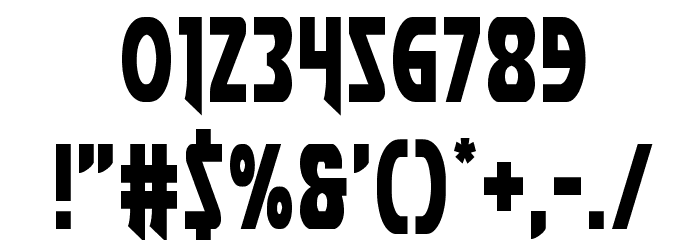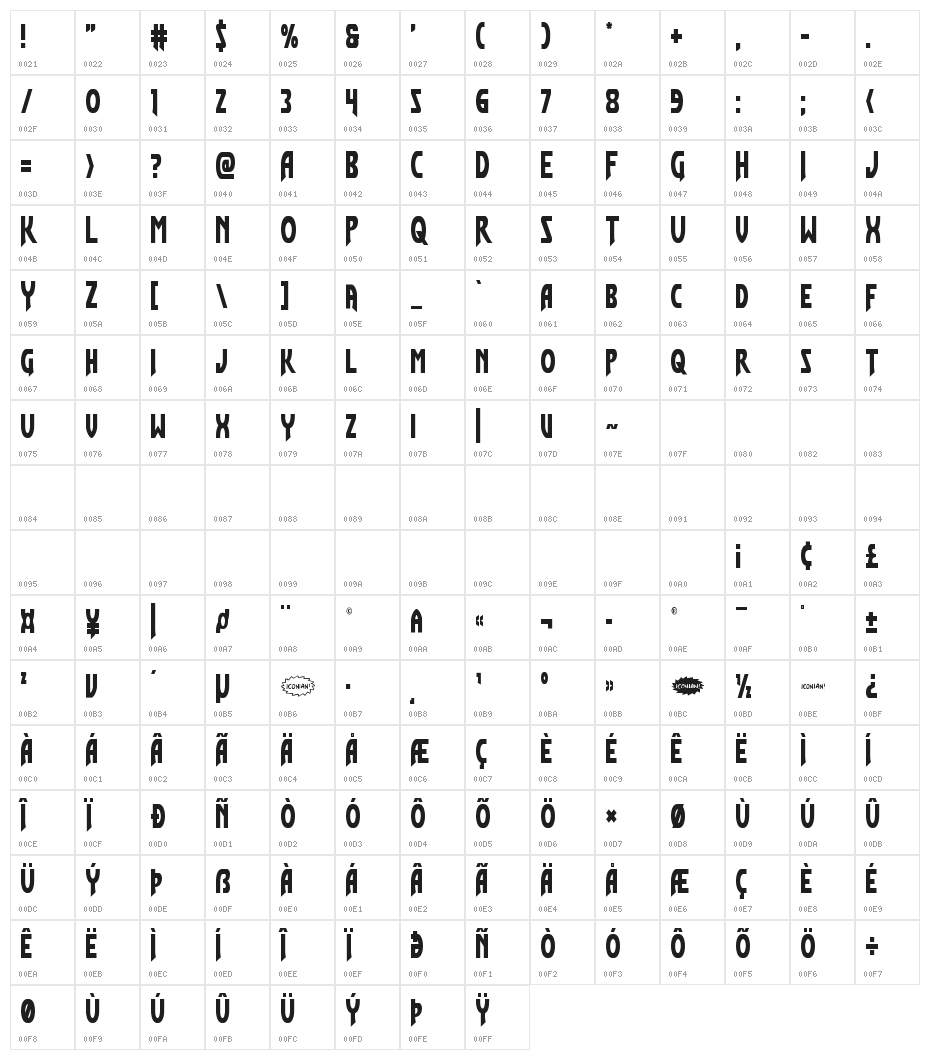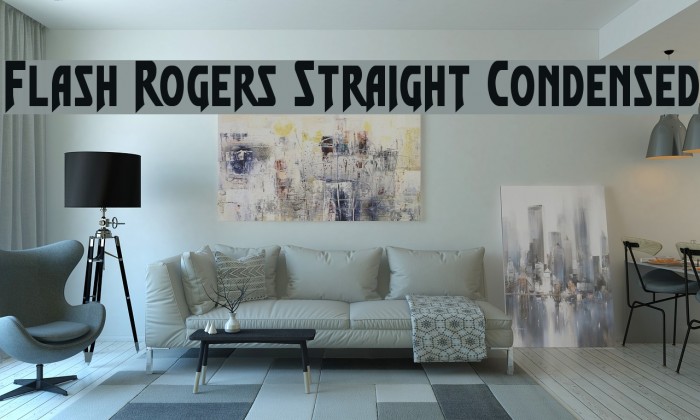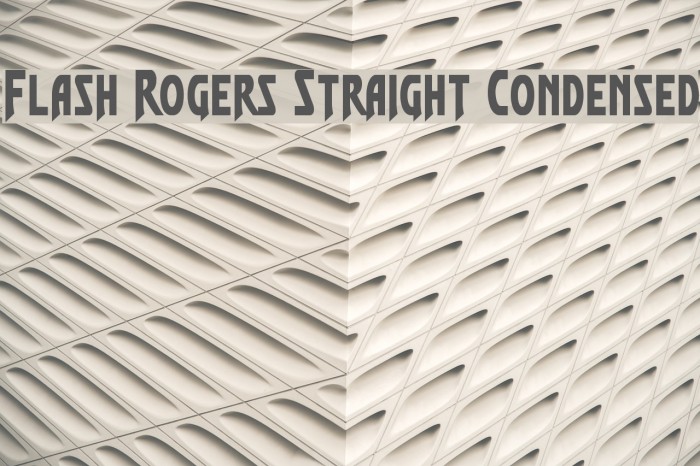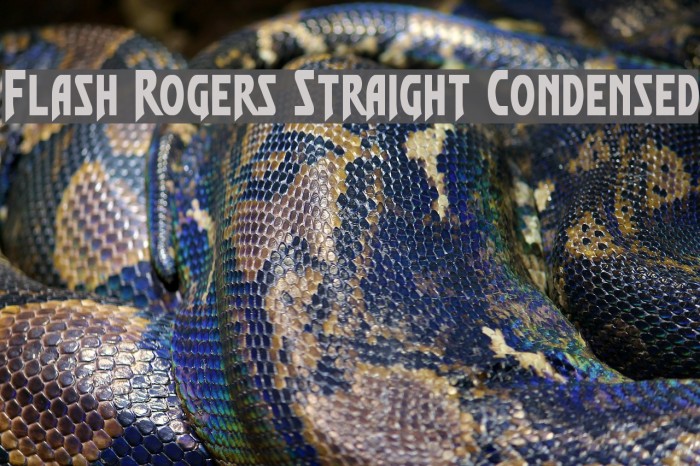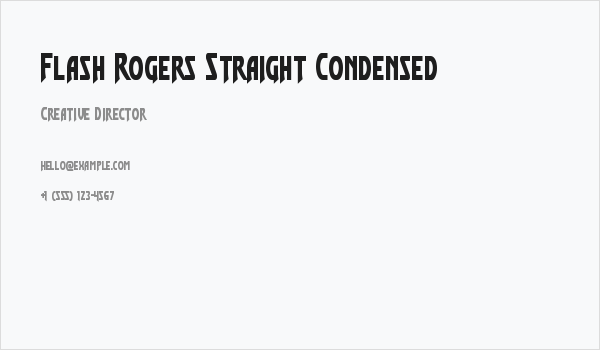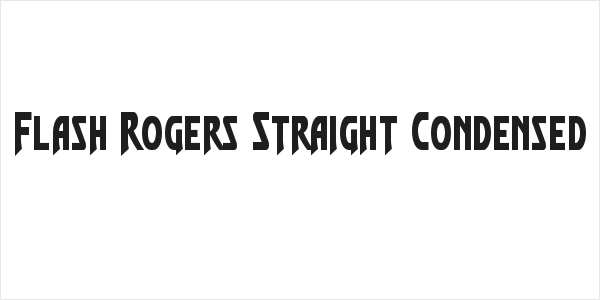
Flash Rogers Straight Condensed Font
Flash Rogers Straight Condensed Description
This font features a bold, geometric design with sharp angles and a condensed structure. The uppercase letters are particularly striking, with a futuristic and dynamic appearance. The characters are tightly spaced, enhancing the compact and impactful look. The numbers and special characters maintain the same bold and angular style, ensuring consistency across all elements. This font's unique style makes it stand out, offering a modern and edgy feel suitable for attention-grabbing designs.